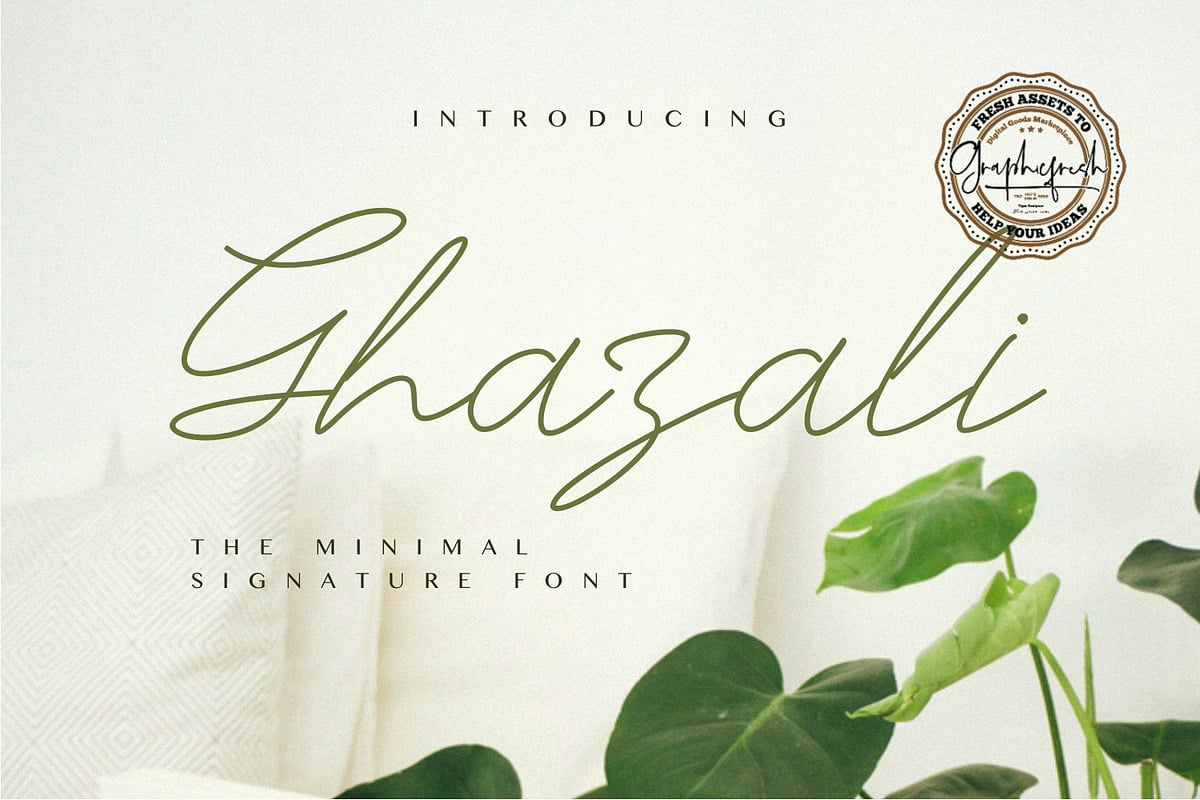
Ghazali - The Minimal Signature Font
Ghazali is a minimal signature font with effortless elegance — perfect for making any design instantly stand out.
With its flowing, feminine style and clean monoline strokes, Ghazali brings a refined, handcrafted feel to a wide range of creative projects. Whether you're working on luxury branding, wedding stationery, or editorial design, this typeface delivers sophisticated charm with ease.
Ideal for:
- Branding & logotypes
- Wedding invitations & stationery
- Magazines & editorial layouts
- Posters & signage
- Business cards & letterheads
- Mugs, T-shirts & merchandise
- Quotes & social media graphics
Font features:
- Uppercase & lowercase characters
- Numerals & punctuation
- PUA encoded for easy glyph access
- International language support